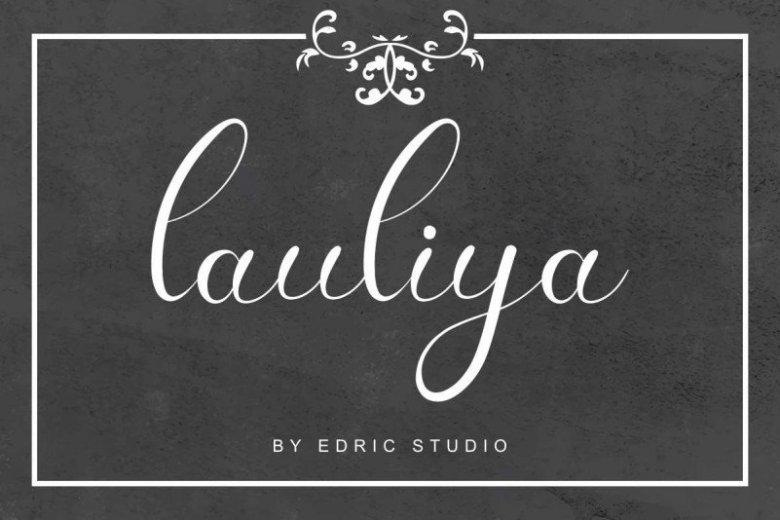
Lauliya Calligraphy Font
Lauliya Calligraphy Font is an exclusive script typeface with unique and elegant style. The typeface has a stunning characters set, perfectly kerned and spaced. The style characters of this font is elegant, stylish, sophisticated and handwriting style.